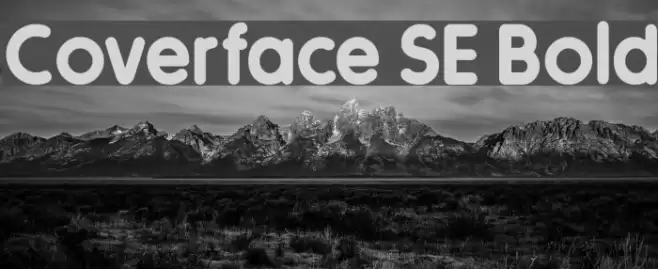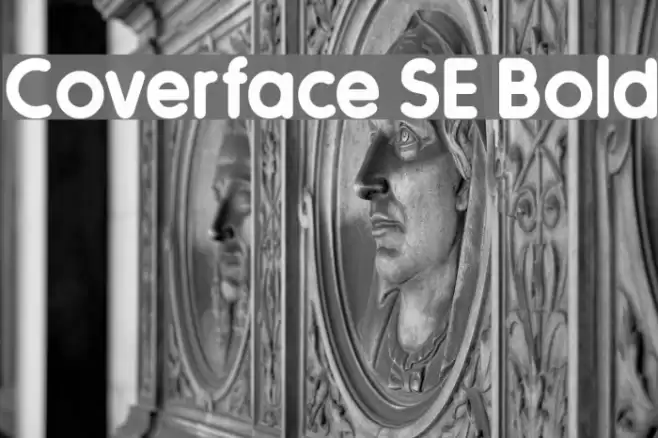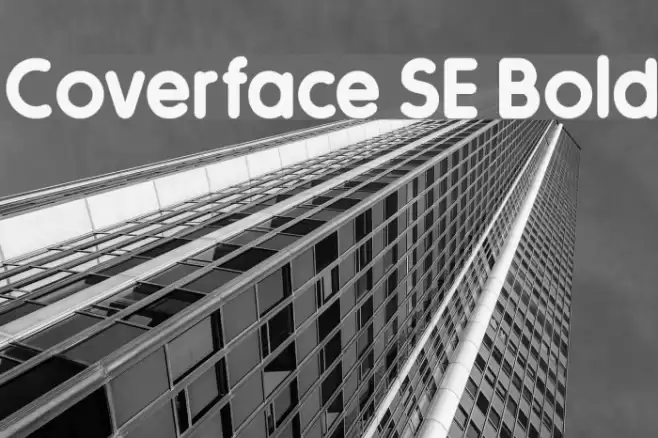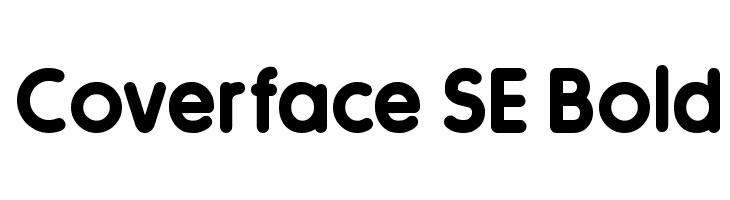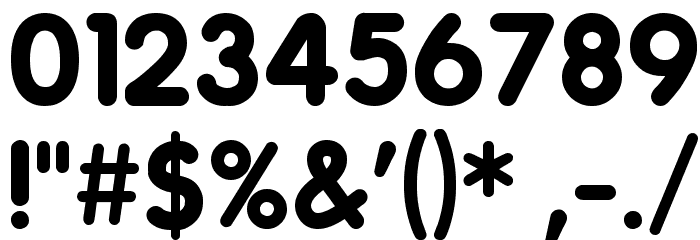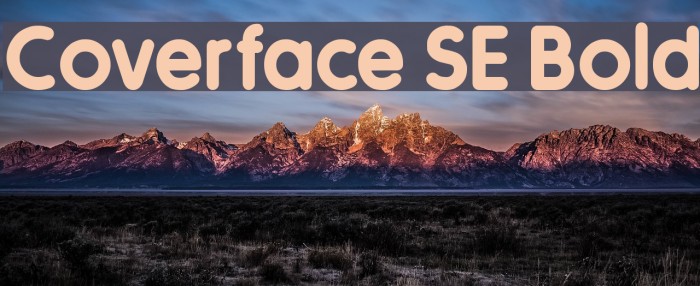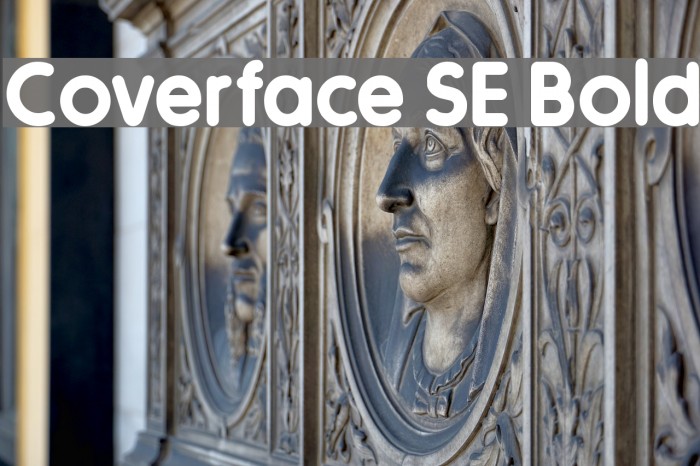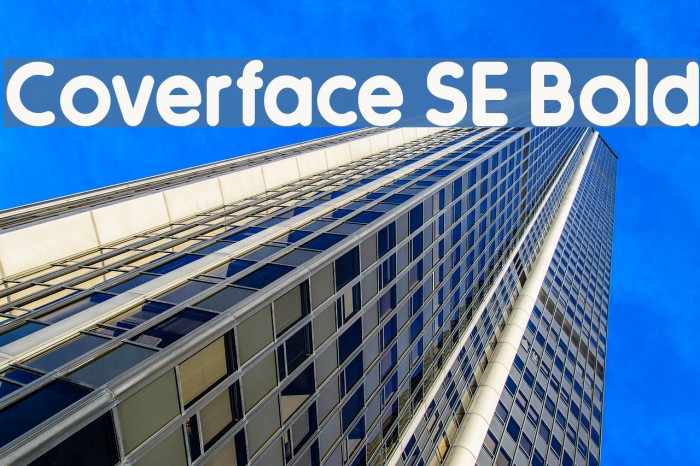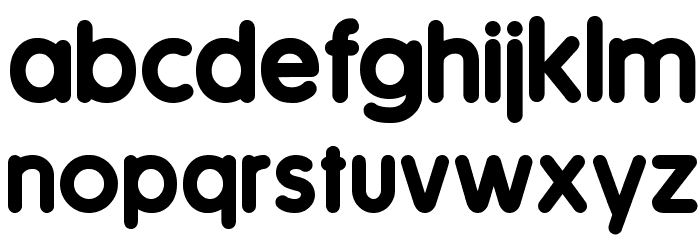
Coverface SE Bold
This font features bold, rounded characters that convey a friendly and approachable aesthetic. The letters are evenly spaced with a consistent stroke width, creating a harmonious and balanced appearance. The uppercase and lowercase letters maintain a uniform style, enhancing readability. The numerals and special characters are designed to match the overall rounded and bold style, making them easily distinguishable. This font is ideal for projects that require a modern yet playful touch, such as branding, advertising, and digital media.
A bold, rounded font with a friendly and approachable style.
- Proposed Projects: Ideal for branding, advertising, digital media, and playful design projects.
- Use Case: Headlines, Logos, Branding